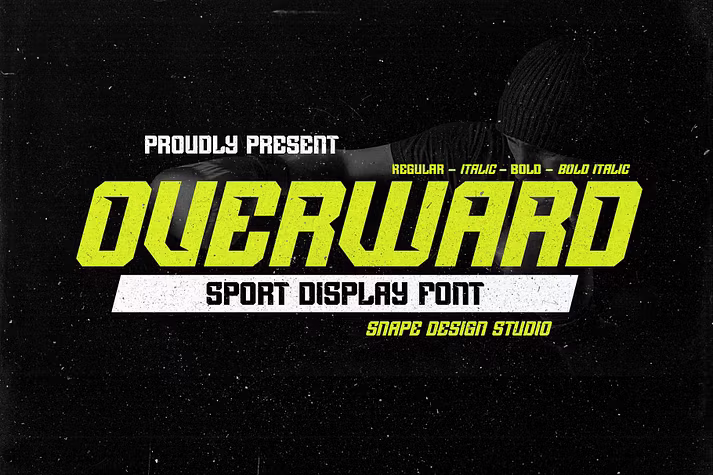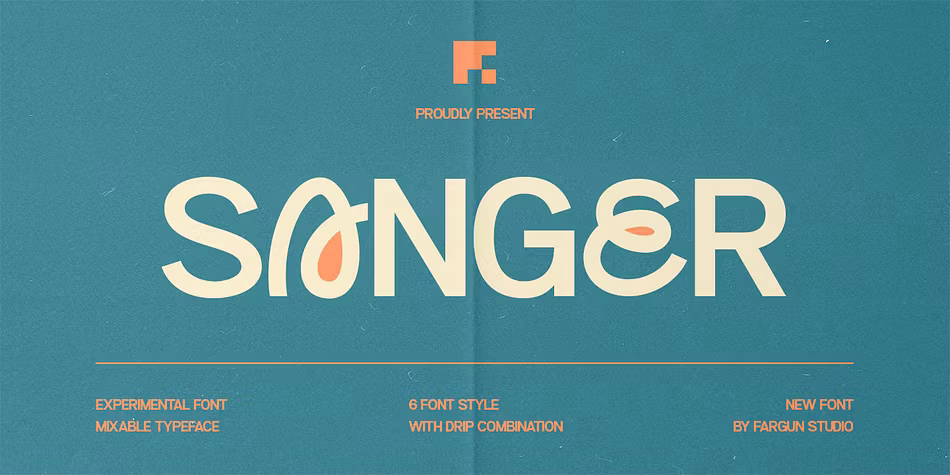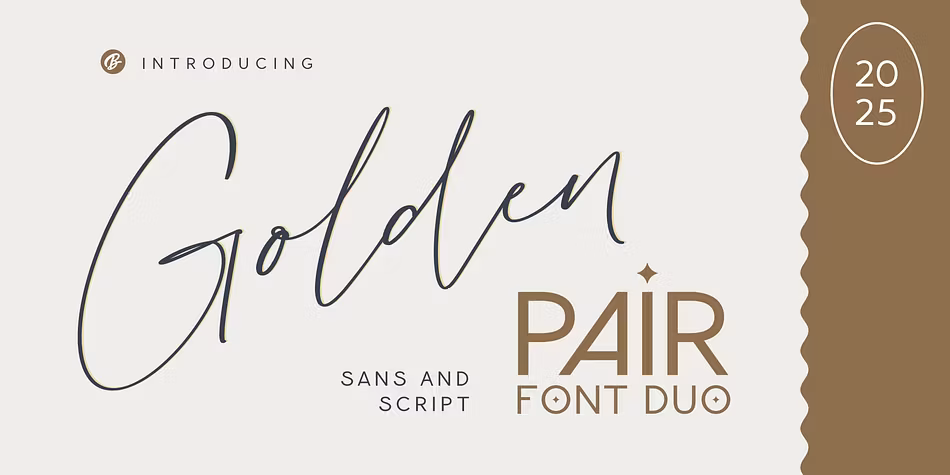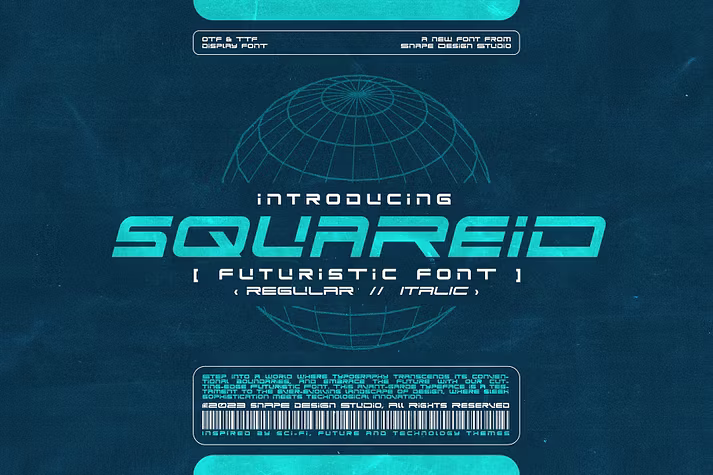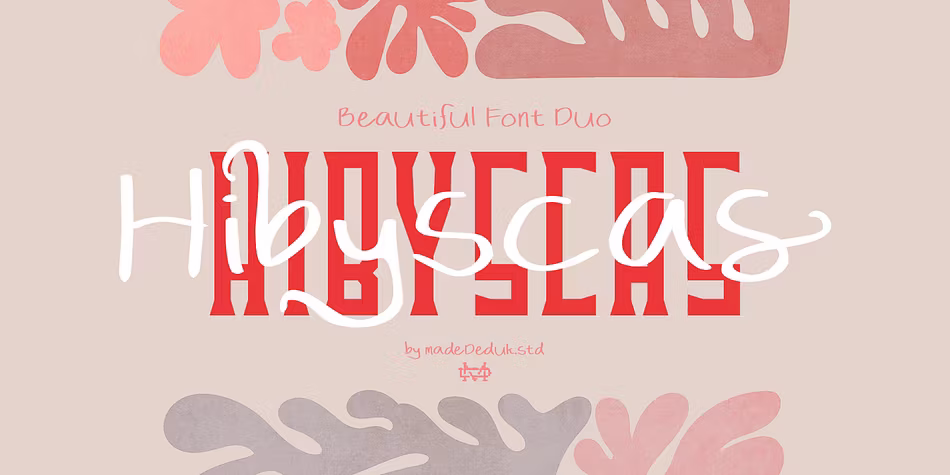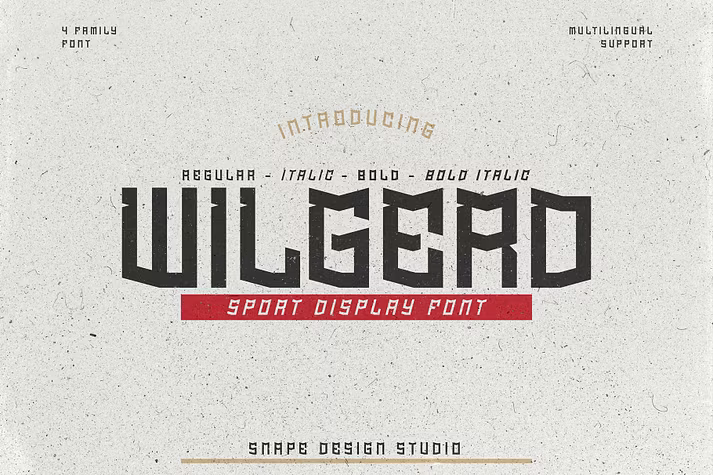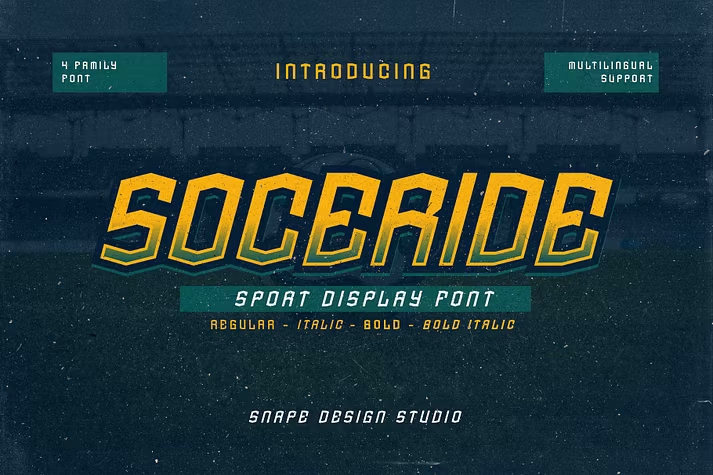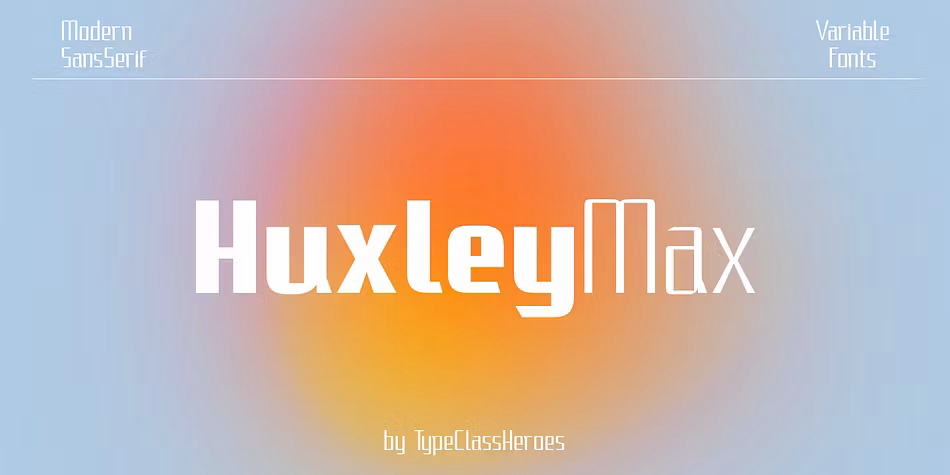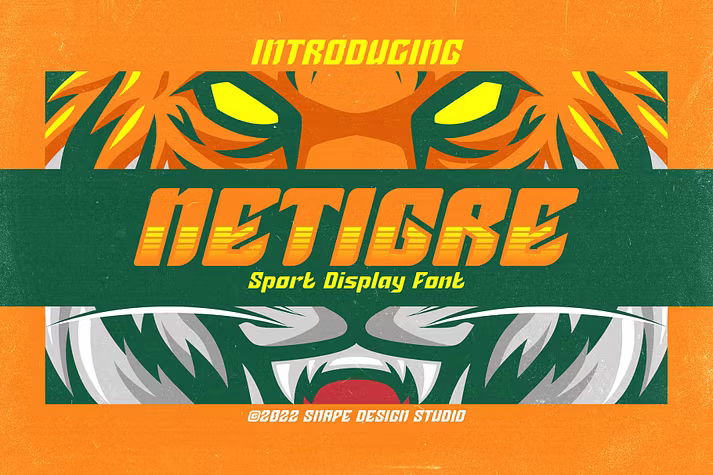
Display fonts for July 30th
In the world of typography, display fonts serve as powerful tools for making statements and enhancing visual appeal. This collection features a variety of display fonts, each with its own unique character and style. From the energetic and bold Overward to the innovative Sanger, these fonts are designed to capture attention and elevate your designs. Explore the modern futuristic Smugbuld, the elegant Golden Pair, and the dynamic Hibyscas, all crafted to add flair to your projects. Whether you're working on sports branding, logos, or creative packaging, this selection offers versatile options to bring your ideas to life. Dive into the vibrant world of display fonts and discover how these typefaces can transform your creative endeavors!
Overward
Overward is a striking sport font that commands attention with its bold presence. Perfect for projects that require a dynamic and powerful aesthetic, this font adds a vibrant flair to sports designs, team jerseys, films, logos, posters, and more. Its versatility makes it an excellent choice for any creative endeavor. Designed with clarity in mind, Overward features uppercase and lowercase letters, numbers, and punctuation, making it suitable for a variety of applications. Enhance your design projects with this eye-catching font and watch your ideas come to life.
Sanger
Sanger Font is an innovative typeface collection crafted with six unique styles, blending boldness and creativity. Featuring two standout drip styles, this font brings an edgy twist to your designs, ensuring they capture attention. With multilingual support, Sanger Font is ideal for diverse projects including posters, logos, branding, and social media graphics. Its versatility allows you to express your style and creativity seamlessly. Whether it's for books, magazines, or any other design, Sanger Font is your go-to choice for a distinctive and artistic look. Suitable for both print and digital media, it offers endless possibilities for your creative projects.
Smugbuld
Smugbuld is a cutting-edge futuristic font that exudes boldness and modernity. It’s designed to capture the essence of technology and space, making it perfect for projects in digital media, films, technology branding, and more. This font adds a contemporary twist to logos, posters, and game designs, ensuring they stand out. With both OTF and TTF formats available, Smugbuld is user-friendly and accessible for all designers. Its unique character set allows for creative freedom, making it suitable for both headlines and detailed projects. Transform your design projects with this innovative font.
Golden Pair
Golden Pair is an elegant font duo that expertly combines a modern script with a sophisticated sans-serif. This font is designed for modern creatives seeking versatility and timeless elegance in their designs. Ideal for luxury branding, stationery, web design, and stylish packaging, Golden Pair strikes the perfect balance between charm and professionalism. The sans ligatures automatically activate with uppercase letters, while the script offers swashes and stylistic alternates for personalized touches. With comprehensive help files and editable Canva templates, Golden Pair is perfect for logo creation, business cards, and invitations. Elevate your design projects with this exquisite font duo.
Squareid
Squareid is a futuristic font that embodies innovation and aesthetics. This typography collection features sleek and dynamic characters, perfect for sci-fi themes, tech branding, and modern design projects. Its versatility empowers creativity, allowing for user-friendly customization options that adapt to various design needs. Ideal for logos, posters, and branding, Squareid elevates your projects with a contemporary edge. The font family includes uppercase and lowercase letters, numbers, and punctuation, making it suitable for diverse applications. Embrace the future of typography with Squareid and transform your designs into visually striking works of art.
Hibyscas
Hibyscas is a captivating font duo that pairs a robust serif with a dynamic brush script, resulting in a harmonious design. This versatile font is perfect for branding, web titles, logos, quotes, and wedding invitations. With a plethora of alternative styles and ligatures, Hibyscas allows for an array of creative options that can adapt beautifully to both large and small sizes. Its features include international glyphs, multilingual support, and both OTF and TTF file formats, making it accessible for any designer. Elevate your design projects with Hibyscas and bring your ideas to life with its unique character.
Wilgerd
Wilgerd is a bold sport font designed to make a statement in any project. Its powerful presence and striking design are perfect for sports-related designs, including team jerseys, logos, and promotional materials. This font adds a vibrant and energetic touch to your projects, ensuring they stand out. With its multiple styles, including uppercase and lowercase letters, numbers, and punctuation, Wilgerd is versatile enough for headlines, posters, and more. Bring your creative ideas to life with this impactful font that captures the essence of athleticism and enthusiasm.
Soceride
Soceride is a bold sport font designed to make a powerful impact. It is ideal for projects that require a strong and vibrant aesthetic, such as team logos, jerseys, and promotional materials. The font's striking design ensures that it stands out in any application, whether it's for a movie, game, poster, or book cover. With features like uppercase and lowercase letters, numbers, and punctuation, Soceride is versatile enough for various design needs. Incorporate this dynamic font into your work and elevate your designs with its energetic flair.
HuxleyMax
HuxleyMax is a modern sans serif display font that offers a clean and simple design. Its variety of widths and weights allows for creative exploration, enabling designers to create rhythm and texture for easy reading. This versatile typeface adapts to various design solutions, making it suitable for branding, product packaging, invitations, labels, posters, and logos. With OTF and TTF formats available, HuxleyMax is user-friendly and accessible. Elevate your design projects with this adaptable font, ensuring a contemporary edge in your creative endeavors.